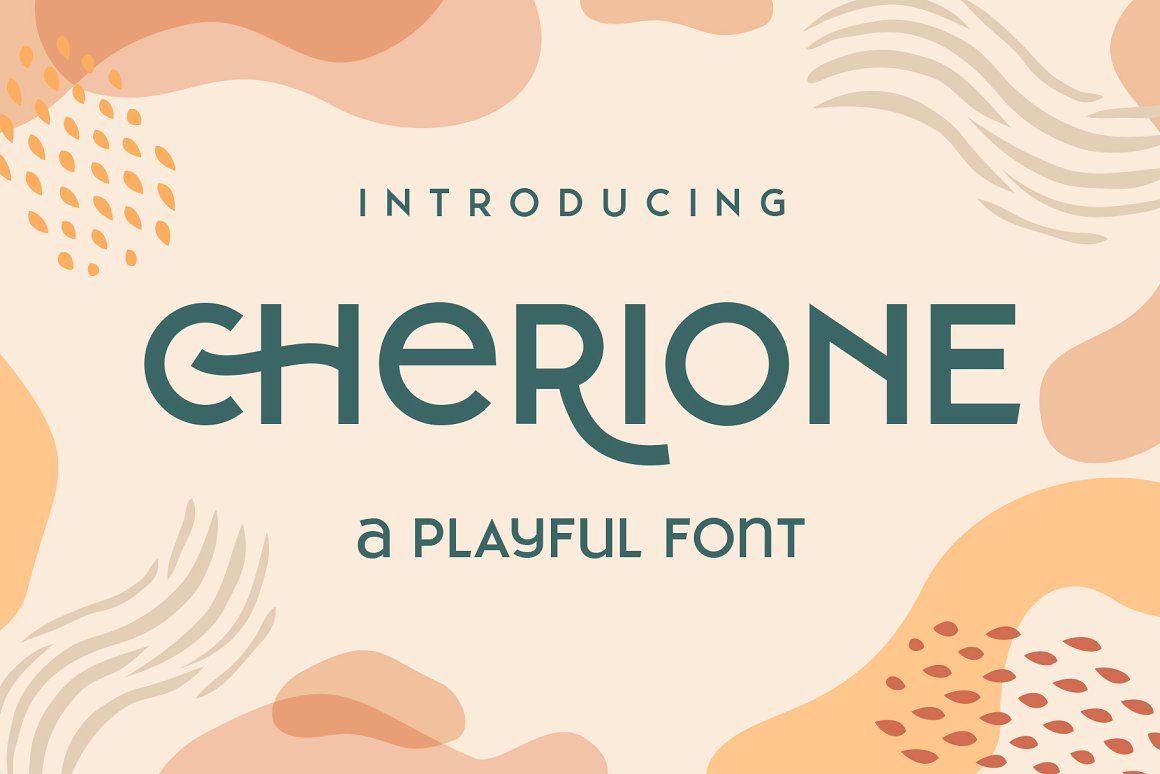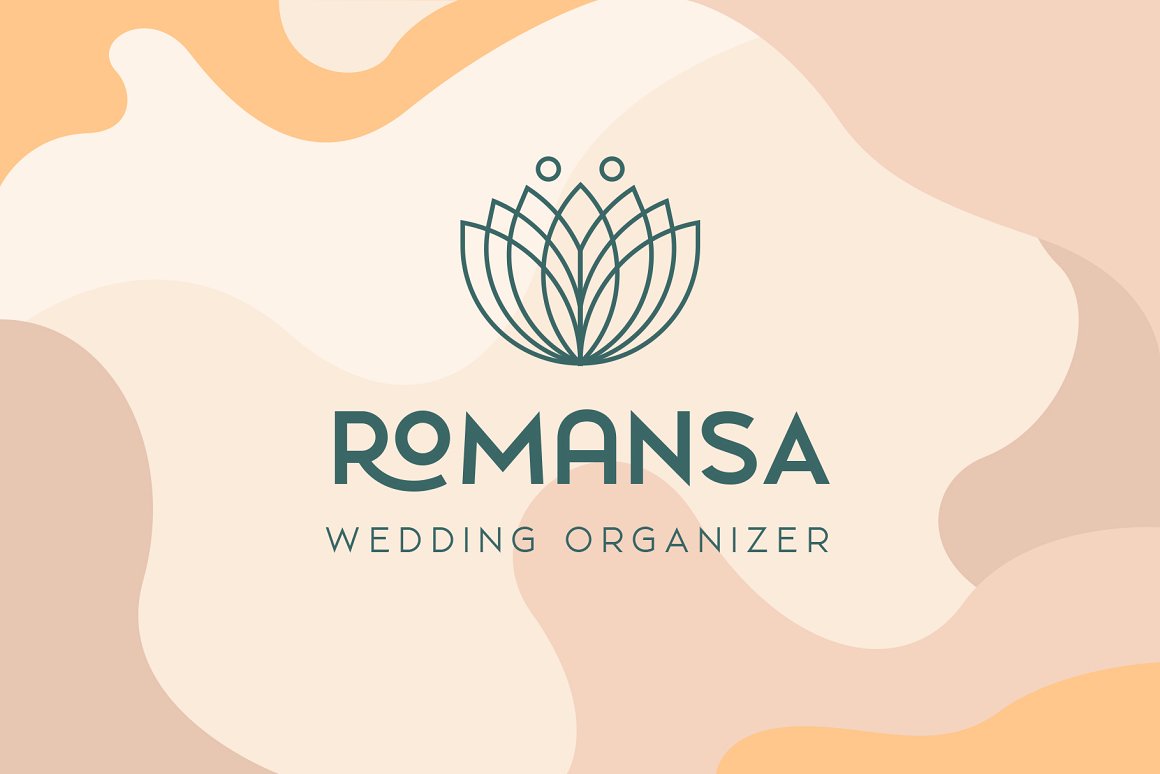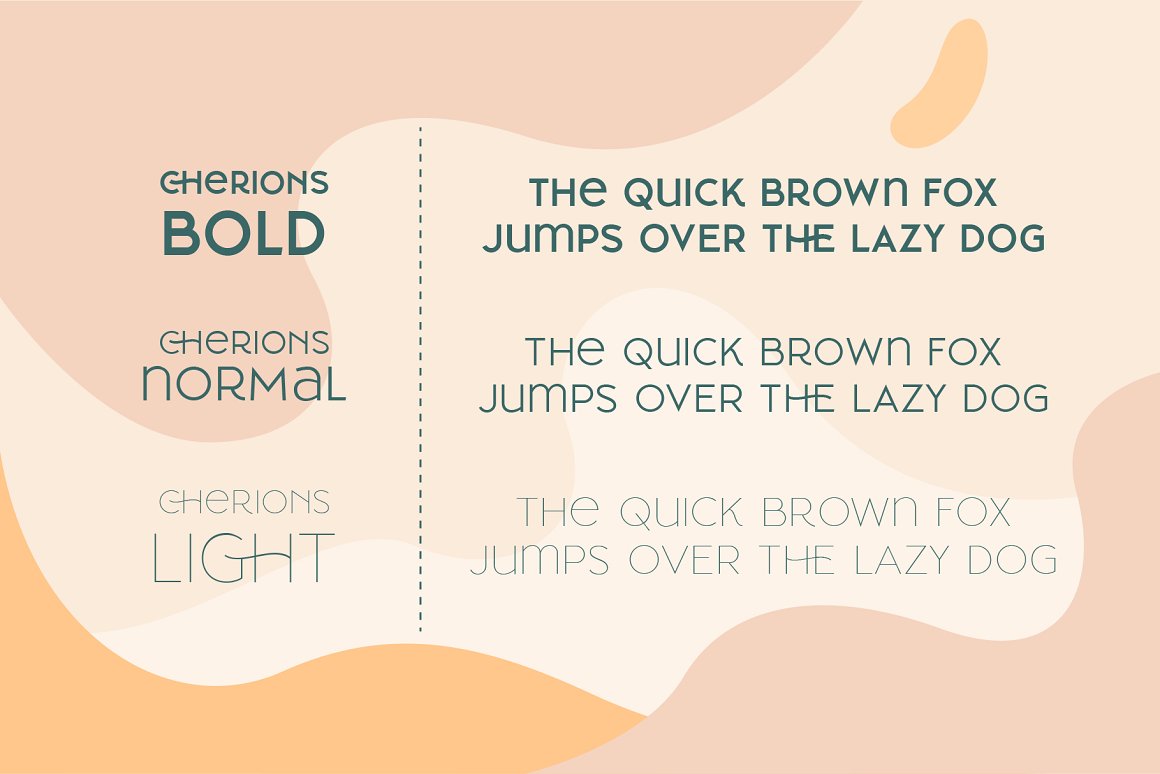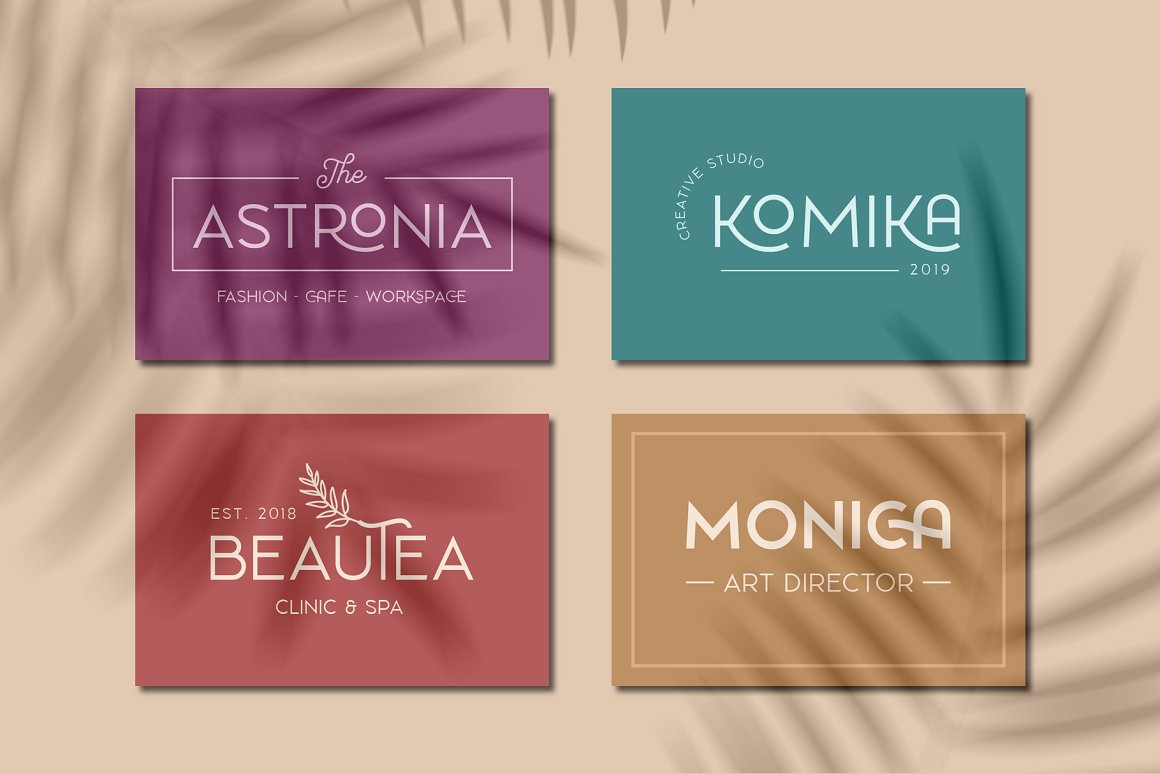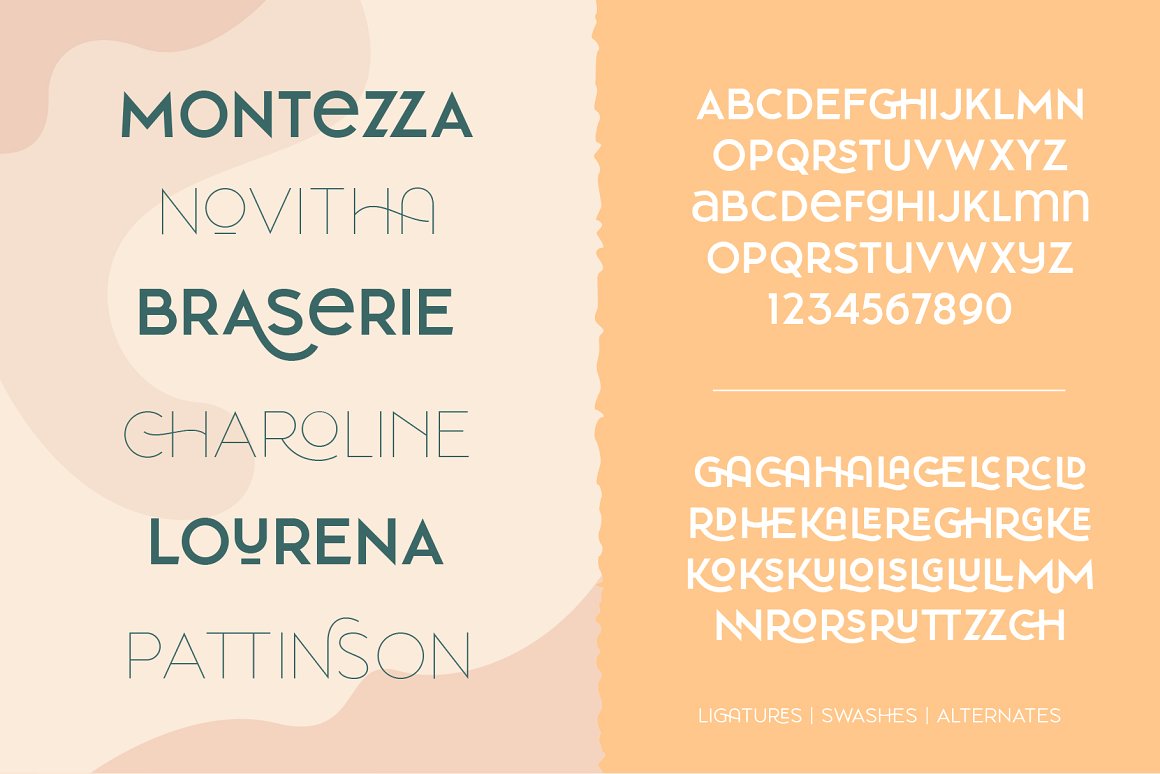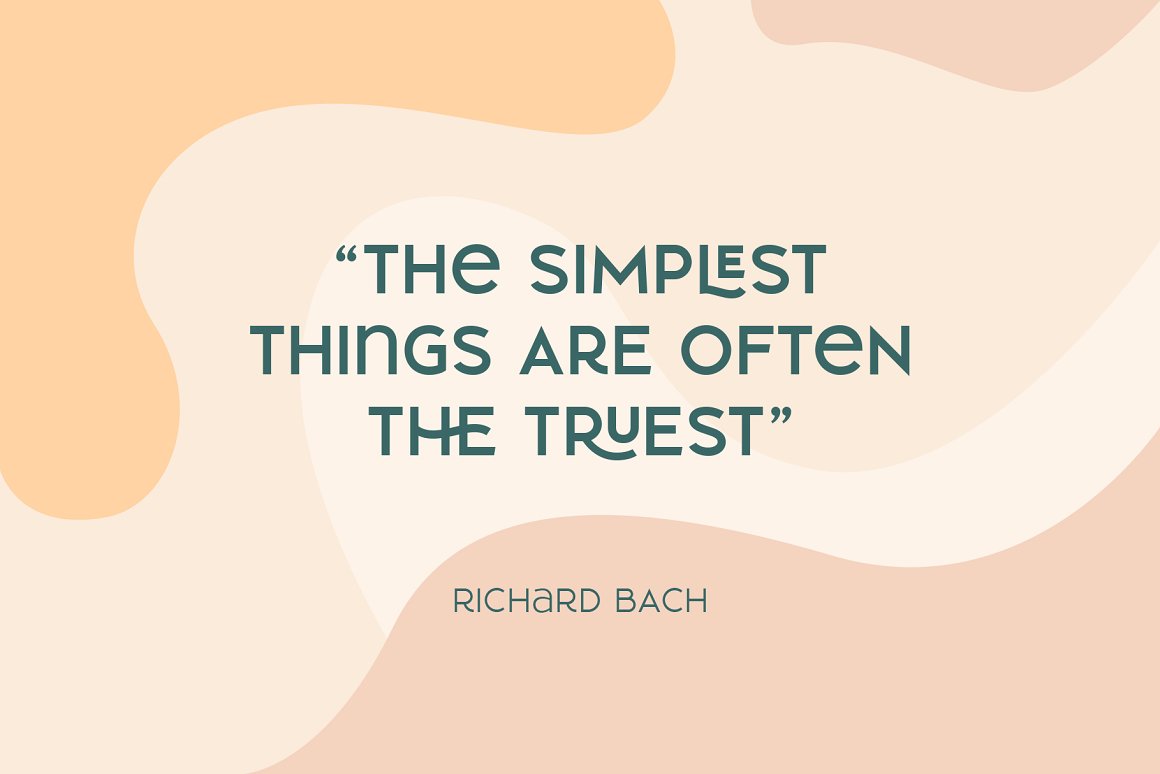
Brand new modern, fancy & creative style typography bundle with 14 multilanguage display font families! All these fonts come with lot of alternate characters and ligatures so you can use it for any kind of modern style branding projects or T-shirt designs 😉
Fancy & Elegant Display Fonts from Arterfak Project contains 14 multilanguage display font families with 45 modern fonts for your new projects! Don’t miss this modern & fancy style font & branding bundle 😉
- 14 multilanguage display font families with 45 modern fonts for your new projects!
- Multilanguage, alternates & ligatures
Creative display fonts for your new projects!
01. Revans Font Family from Arterfak Project
Revans is a strong serif font with medium contrast. Inspired by High Octane Rock genre and modern-classic fashion. Carefully designed with a short ascender to give a solid look, also the sharp serif makes the letters look more strong. Revans is a display-type which perfect for a headline, sub-headline, and short body text for magazine, books, fashion, quotes, hipster t-shirt, signboard, logo, and etc . Available in 5 weights: Light, Normal – Medium – SemiBold and Bold, complete with the slant style. Great choice for a brave concept!
02. Magnies – Minimal Serif from Arterfak Project
Feel the sweetness with Magnies, a minimalist serif font with clean stencil looks. The feminine letterforms which are perfect for logotype, fashion, and display. Magnies was designed with a high contrast of the strokes and cut the thinner line to get the optical effect but still keep the legibility. Great choice with over 100+ alternates characters, that you can create many variations for your design.
03. Cherione from Arterfak Project
Hello, guys! Introducing our new exploration Cherione the playful sans serif font family. Cherione has a unique letterform, the lowercase designed the same height with the uppercase that gives a playfully look. Cherione font has a geometric shape and carefully adjusted to look elegant and minimalist. Perfect for fashion style, minimalist, luxury, kids, and joyful theme. Cherione font family consists of 3 weights: Light, Normal, and Bold. So you can use this font set for many purposes such as logo, storefront, social media design, quote, name card, menu, magazine & editorial, signboard, poster, apparel needs. There are 30+ unique ligatures which give you many variations of typography designing. Also complete with accents, swashes, and alternates.
04. Mourich Elegant Font | With Extra from Arterfak Project
The stylish serif font with 2 styles that recommended for stylish and minimalist design. Carefully designed with medium contrast of the strokes. The stylish serif with 2 styles that recommended for stylish and minimalist design. Carefully designed with medium contrast of the strokes. This font is an all-caps font or has small capitals that very useful for headline or logo. Suitable in large or small size. Mourich has 500+ glyphs with many OpenType features. There are beautiful ligatures, Stylistic alternates, and swashes which you can use it to get your design more softly. Mourich Bold is has 20pt thick from the regular style. The rounded serif gives a strong and assertive look. Beautiful to use as standalone type or combine with regular style. Very recommended for headline. Mourich Regular has a minimalist adjustment with more relieved of negative space that awesome to apply in many media. Also useful in body text or editorial purposes.
05. Valeria – Elegant Serif from Arterfak Project
Valeria is an elegant serif font, designed with modern-classy style. Valeria has a high contrast of the strokes that gives the minimalist looks, the serif crafted minimal to makes the letterform more classy. Also, the letterspacing is set wide that looks so clean. Versatile and luxury! Available in 3 weights that you can use it for a headline, sub-headline, and body text. Valeria is a great choice for a minimalist design such as book cover, magazine, cards, packaging, quotes, editorial needs, advertising, traveling needs, logos & branding. Valeria completed with alternates and swashes on the uppercase letter that possible you can make a typographic text.
06. Ranille from Arterfak Project
Introducing Ranille a modern classy bold serif font. An elegant font with a bunch of alternates, and ligatures. Ranille is a display font inspired by retro curves style from the 50-60s era and brings it into modern design with bold weight. Ranille is including with over 200+ alternative characters (PUA Encoded) that give you a wide range of typographic design results. Ranille is a versatile font that ready to make your designs more stand out such as posters, magazines, branding, logos, label, merchandise, presentation, advertising, cards, quotes and so much more!